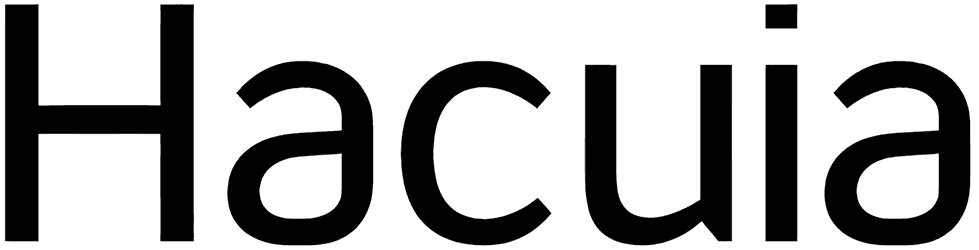
Hacuia Font
Bringing out your content design professionally just needs a sans serif font formed by modern and friendly letters along with elevated readability benefits; see over the rounded design of Hacuia that gives a pioneering look to your graphic creation, especially digital publications, fashion, packaging, branding, clothing, and other printed text. Nothing can skip its trendy effects, so give it a try and make charming outcomes.